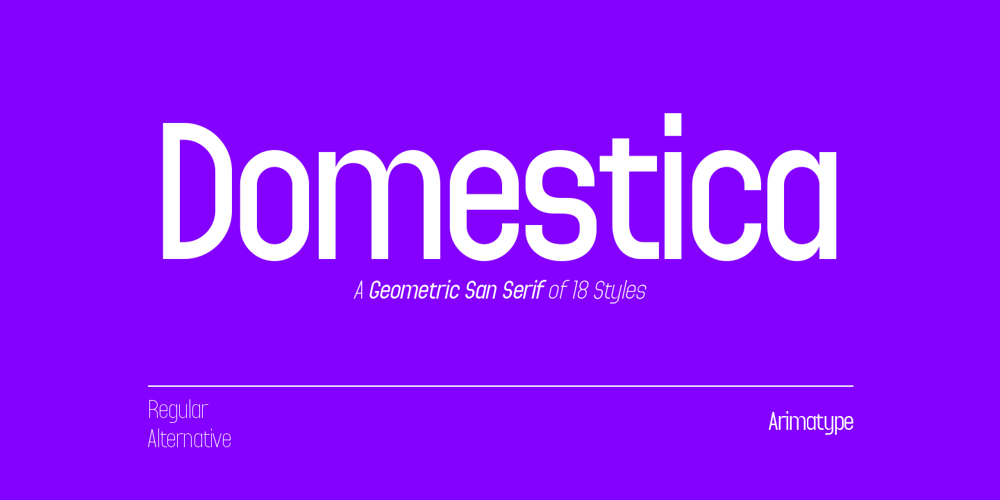
Domestica Font Family was designed by Amri Mauludin and published by ArimaType. Domestica contains 17 styles and family package options. Domestica is made from a sans humanist design with a modern touch. Domestica is inspired by the strong character of the letters without leaving the aesthetics of the letterform.Every member of the Domestica family is also equipped with useful OpenType features such as Ordinals, Stylistic Alternates, Stylistic Sets, Standard Ligatures, Fractions, and Numerator & Denominator.Comes with 8 weights from Thin to Extra Bold with each matching Tilt. also one outline font Contains several OpenType features: Style Alternatives, Number Variations (fractions, table layers, numerators, denominators), and also includes extensive Latin.